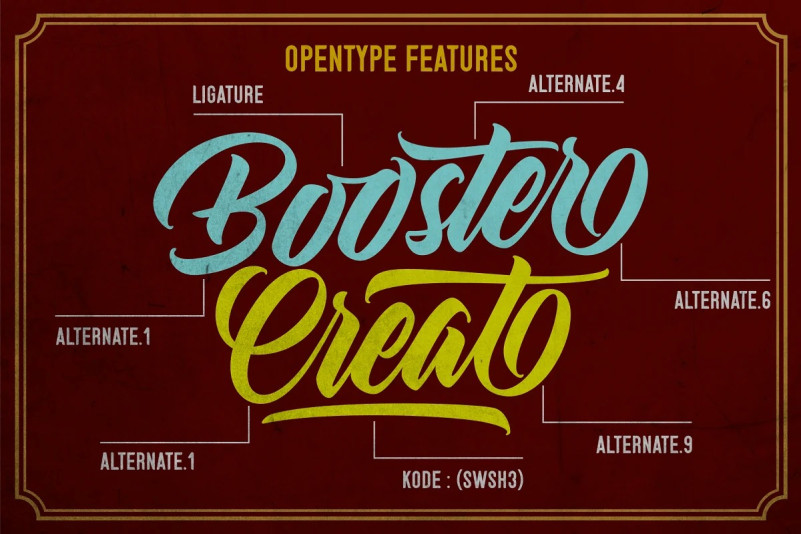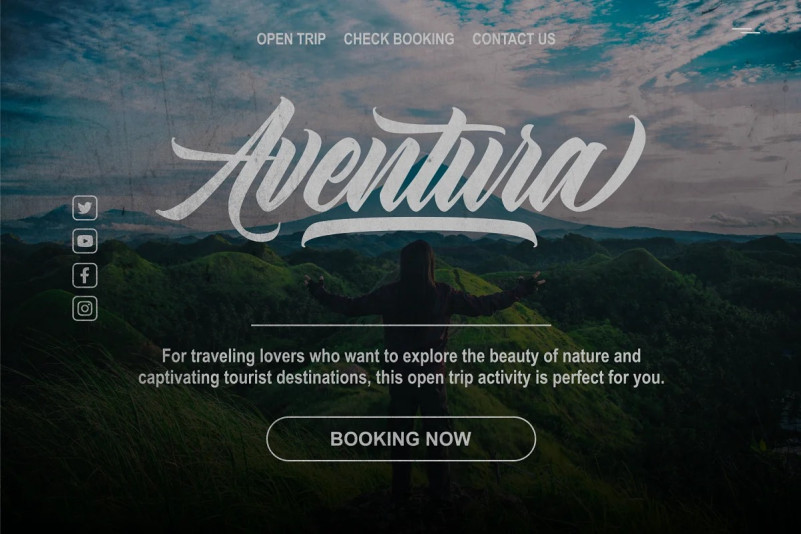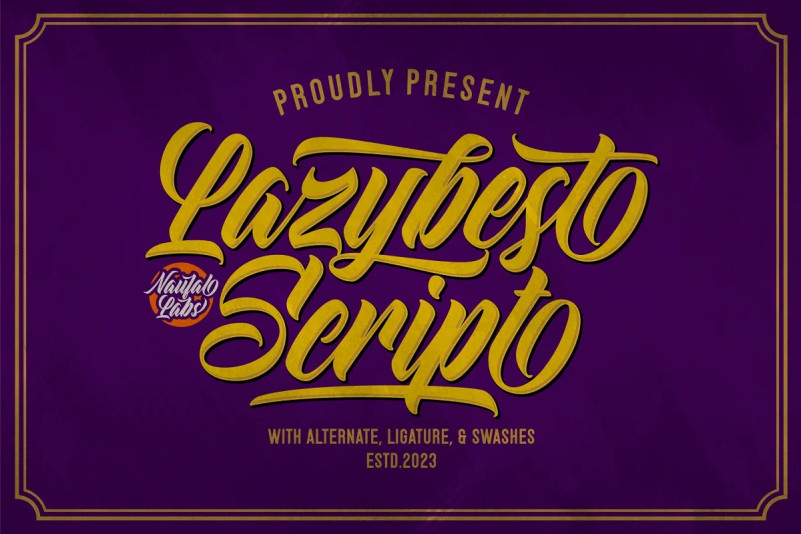
Lazybest Script Font
Lazybest Script Font is font reads as strong, confident, and dynamic and can add tons of nostalgic character to your designs and great movement this typeface and allow you to make lettering and logotype quickly and easily.
This typeface is suitable to use for any project such as Logotype, Letterhead, Poster, Apparel Design, Label and etc.